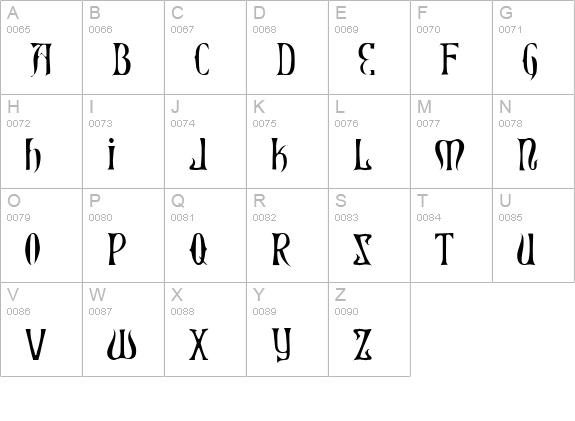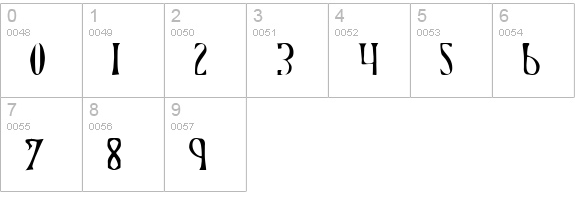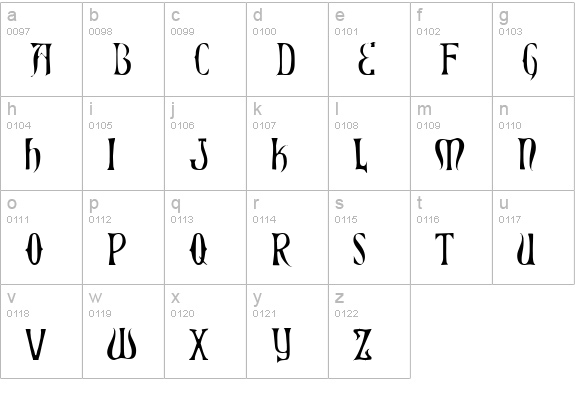
Xiphos Light Font Details
Xiphos Light is a refined, elegant variant in the Xiphos typeface family \xE2\x80\x94 well suited to elegant body text, refined sub-headings, and luxury branding.
Xiphos Light font is a modern and elegant typeface that exudes sophistication and clarity. Its sleek and streamlined design makes it perfect for a wide range of applications, from branding to editorial design. The Xiphos Light font features clean lines and subtle curves that add a touch of sophistication to any project. What sets Xiphos Light font apart is not just its beautiful design, but also the fact that it is free to download. That's right, this stunning font is freely available at FontsMarket.com, making it accessible to designers and creatives everywhere. Whether you're working on a professional project or a personal endeavor, Xiphos Light font is sure to elevate your design with its timeless appeal. Download Xiphos Light font today and add a touch of elegance to your next project!